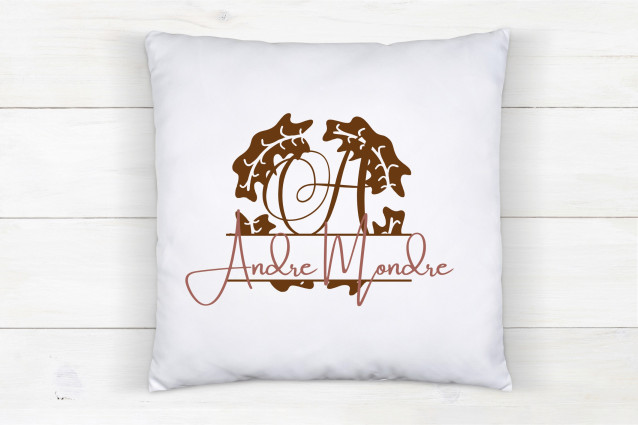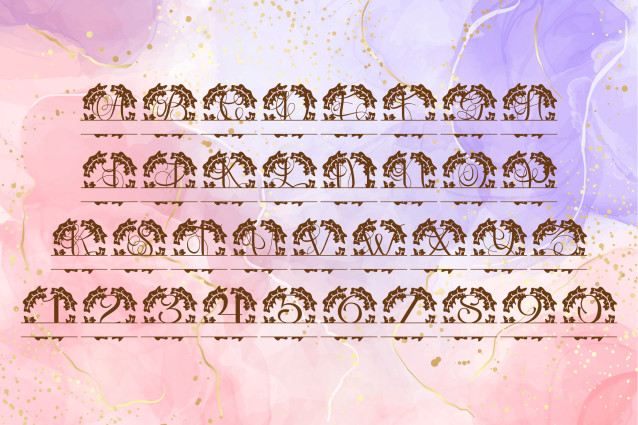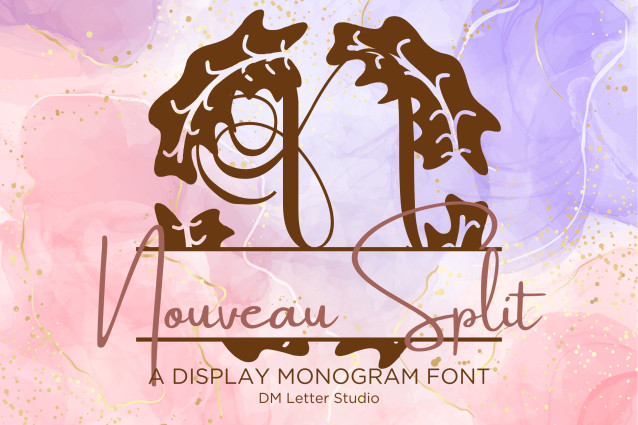
Nouveau Split Monogram Font
Nouveau Split Monogram Font is an elegant serif split font inspired by the refined geometry and bold lines of the Art Deco era. Each uppercase letter features decorative details and a clean horizontal split, giving you the flexibility to add names, dates, or short messages with style. This makes it the ideal choice for weddings, boutique logos, personalized gifts, luxury packaging, and Cricut/Silhouette crafts.
The structured serif foundation ensures your designs are strong and professional, while the Art Deco-inspired accents bring a sense of glamour and timeless charm. Whether you’re creating wedding invitations, event signage, personalized stationery, or high-end branding, Nouveau Split Monogram helps your work stand out with elegance and sophistication.
By blending vintage inspiration with modern usability, Nouveau Split Monogram delivers both style and flexibility. It’s perfect for crafters and designers who want to bring the bold sophistication of the Art Deco movement into personalized and upscale designs.